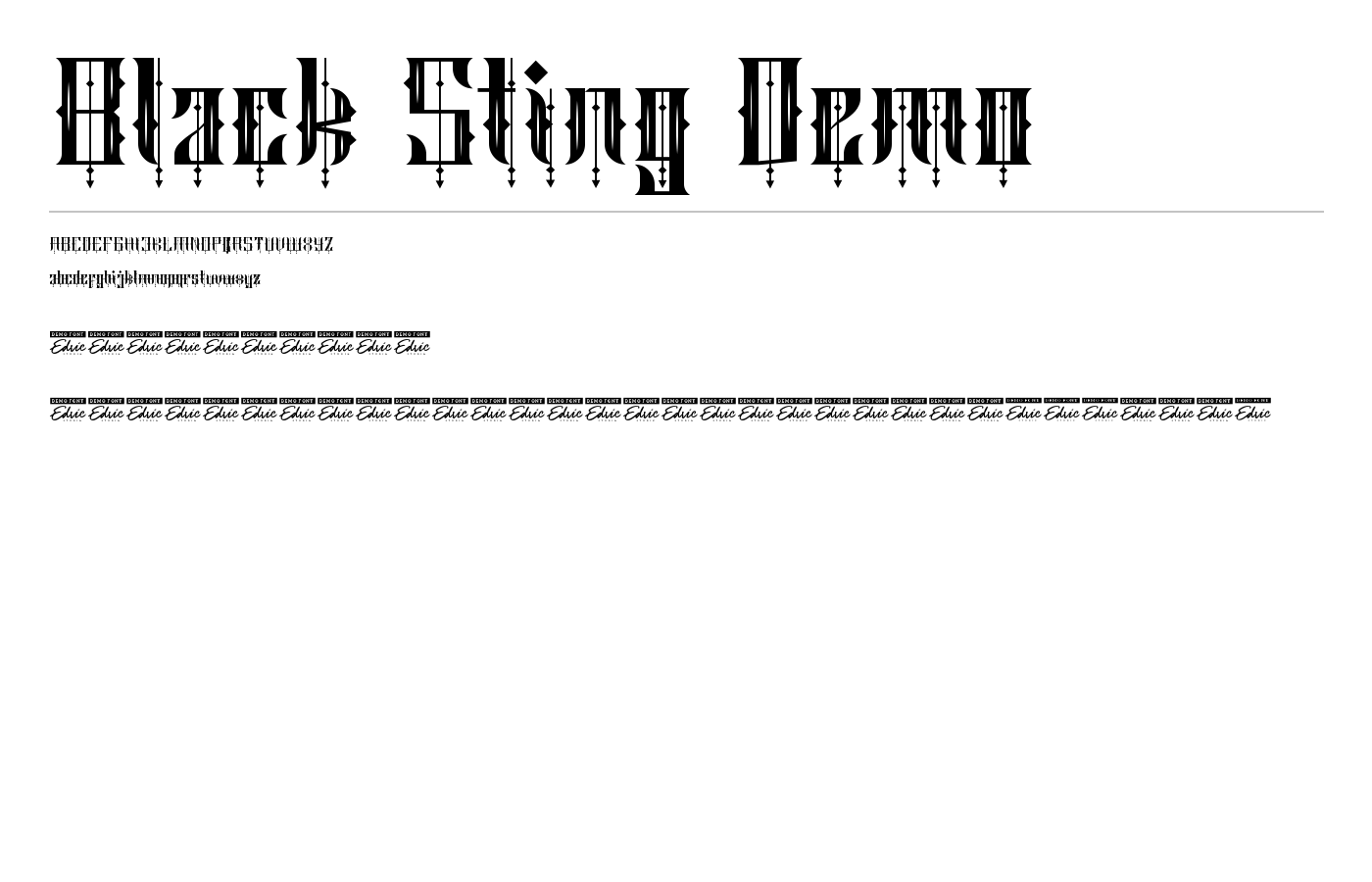
Black Sting Demo is a bold, decorative serif font with a strong Gothic vibe, featuring sharp, pointed serifs and striking vertical strokes that evoke a dramatic, edgy aesthetic. Its high contrast and intricate details make it ideal for attention-grabbing headlines, logos, and display purposes where a dark, mysterious, or vintage mood needs to be conveyed. This font shines best in creative branding and poster design, where its unique style can stand out and make a powerful impression.
Black Sting Demo Font
About Black Sting Demo Font
| Font family | Black Sting Demo Font |